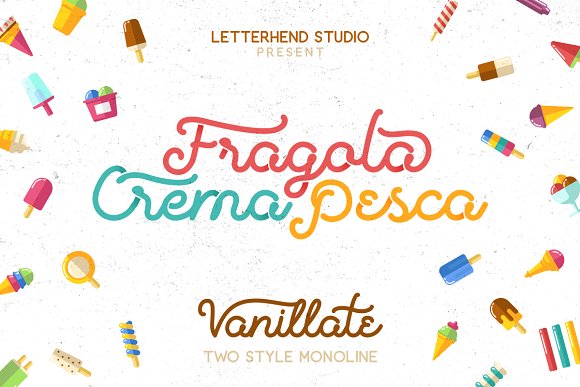
Vanillate Font
Vanillate Font is perfect for sweet bakery branding, artisanal ice cream shop signage, cozy café menu designs, warm dessert packaging, delicate pastry shop graphics, charming tea house communications, gentle wellness center materials, soft lifestyle blog headers, creamy cosmetic product labels, and comforting food brand identities. This sweet typeface brings vanilla warmth to gourmet dessert companies, artisanal food producers, cozy hospitality brands, gentle beauty products, and comforting lifestyle services.
Vanillate Font is exciting because it embodies the pure sweetness and comforting warmth of vanilla through its gently crafted letterforms that evoke feelings of home, comfort, and simple pleasures. The font features soft characters with creamy proportions and sweet details that reflect the soothing aroma of vanilla beans, the warmth of fresh-baked goods, and the comforting familiarity of classic flavors. Its distinctive construction demonstrates sweet simplicity with carefully balanced elements that create an immediate sense of comfort and gentle sophistication. The font's vanilla presence and sweet authenticity make it perfect for brands seeking to communicate comfort, warmth, and the timeless appeal of classic sweetness in their visual communications.
Vanillate Font family includes various sweet styles: Light, Regular, Medium, Bold, Italic, Creamy, Sweet, Soft, Condensed, Extended, Gentle, and Comforting variants. Each family member maintains the core vanilla DNA while offering different levels of sweetness for diverse comfort-focused design applications. The comprehensive font collection ensures consistent sweet branding across bakery campaigns, comfort food products, and gentle communication materials.
Whether you're creating bakery brand identities, designing sweet marketing materials, developing comforting website headers, or crafting vanilla-focused promotional campaigns, Vanillate Font delivers outstanding sweet appeal and vanilla authenticity. The font's distinctive gentle personality excels in bakery logos, sweet packaging design, comfort applications, and dessert projects where vanilla warmth and comforting sweetness are essential.